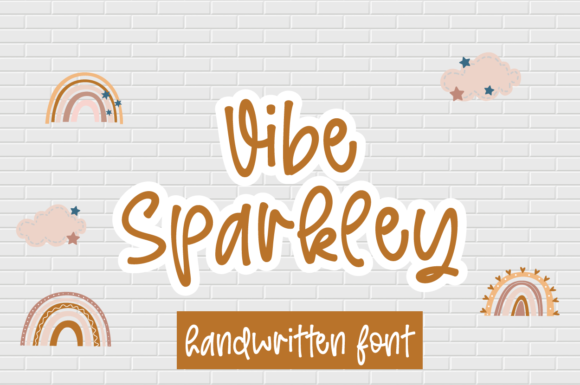
Get ready to embark on a typographic adventure with Vibe Sparkley Font, a captivating script font crafted by the talented Soegih Artwork. This enchanting font oozes charm and personality, making it the perfect choice for adding a touch of whimsy and elegance to your creative projects.
Vibe Sparkley's friendly and inviting nature lends itself effortlessly to a myriad of applications. Picture your words dancing across the page in this delightful font, whether you're crafting heartfelt thank-you cards, designing eye-catching quotes to inspire your team, or creating personalized greeting cards that leave a lasting impression.
Step into the world of branding and elevate your logo with Vibe Sparkley's distinctive flair. Let your business cards exude professionalism and creativity, ensuring your brand stands out from the crowd. Unleash your imagination and transform everyday designs into works of art with this versatile font.
Vibe Sparkley's beauty lies in its versatility, effortlessly adapting to diverse contexts and design styles. Its graceful curves and playful strokes add a touch of enchantment to any project, whether you're creating stunning flyers, vibrant posters, or captivating social media graphics.
With Vibe Sparkley, the possibilities are boundless. Embrace its charm and watch your creative visions come to life. Let your words and designs dance together harmoniously, creating a symphony of visual delight.
Embrace the allure of Vibe Sparkley Font today and embark on a creative journey filled with joy, inspiration, and boundless possibilities.